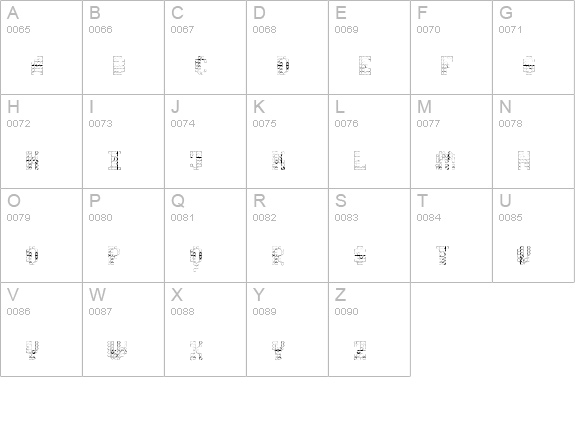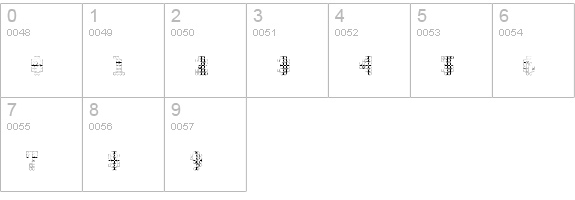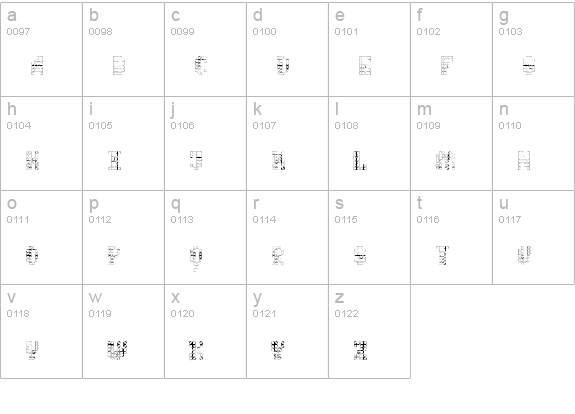
QuadChannelTwo Font Details
Introducing QuadChannelTwo, a stunning and versatile font that will elevate your designs to new heights! With its sleek and modern appearance, this font is perfect for a wide range of projects, from logo designs to branding, packaging, and more. QuadChannelTwo is the epitome of elegance, with its clean lines and sharp edges that exude professionalism and sophistication. Its bold and impactful presence will captivate your audience and leave a lasting impression. But what sets QuadChannelTwo apart from other fonts is its accessibility. It is freely available to download at FontsMarket.com, allowing you to unleash your creativity without any limitations. Whether you're a professional designer or a beginner, this font is the perfect companion to bring your visions to life. With QuadChannelTwo, you'll have access to a wide range of characters, including uppercase and lowercase letters, numbers, punctuation marks, and special symbols. This versatile font is designed to adapt to any project, giving you the freedom to experiment and create unique and eye-catching designs. Don't settle for ordinary fonts when you can have QuadChannelTwo at your fingertips. Download it for free at FontsMarket.com, and let your creativity soar to new heights. Discover the power of QuadChannelTwo and elevate your designs to the next level today!